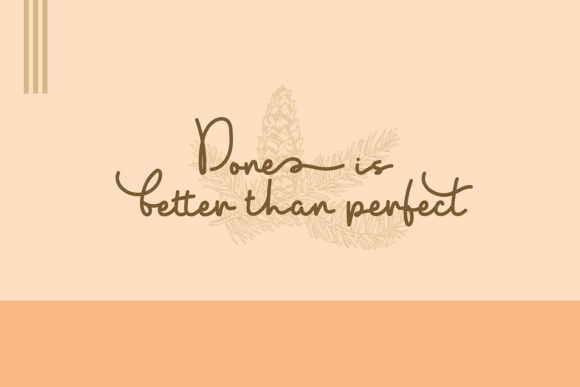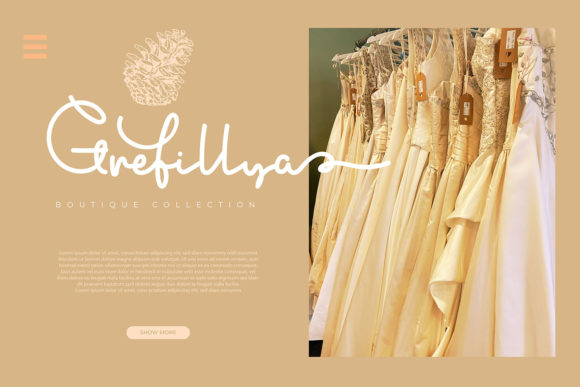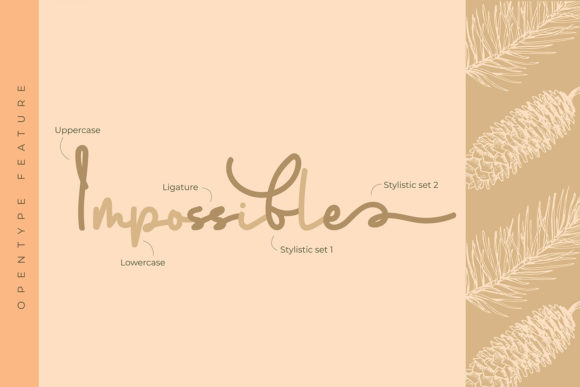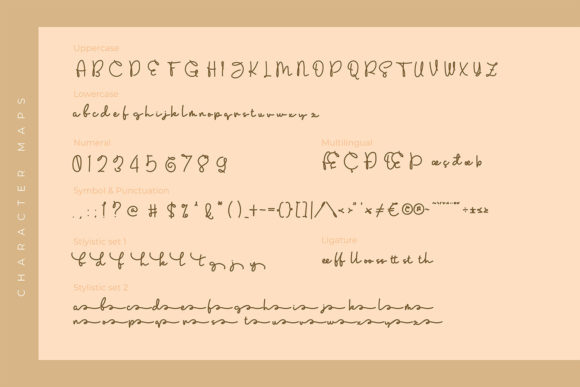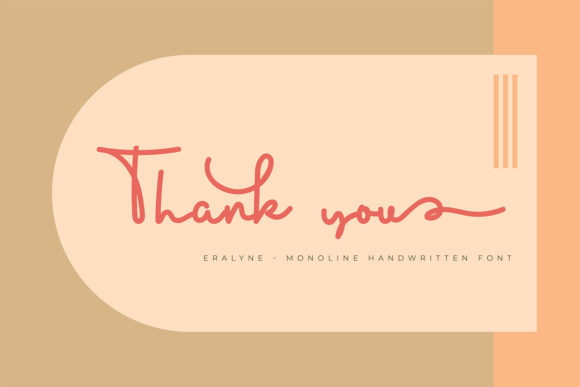
Eralyne Font: The Perfect Handwritten Touch for Your Designs
Are you looking for a beautiful, flowing handwritten font to add a personal touch to your designs? Look no further than Eralyne Font! This stunning font is perfect for a variety of design projects, from wedding invitations and thank you cards to quotes, greeting cards, logos, and business cards.
What Makes Eralyne Font So Special?
Eralyne Font is a unique and elegant handwritten font that is sure to make your designs stand out. Its flowing script and beautiful swashes make it perfect for adding a touch of sophistication and whimsy to any design. Whether you’re a designer, crafter, or DIY enthusiast, Eralyne Font is a must-have in your font collection.
Wedding invitations, save the dates, and thank you cards are just a few examples of the many ways you can use Eralyne Font to add a personal touch to your event designs. The font’s elegant script and beautiful swashes make it perfect for formal events, while its playful and whimsical feel makes it suitable for more casual gatherings.
Ideal for Crafters and DIY Enthusiasts
If you’re a crafter or DIY enthusiast, you’ll love Eralyne Font! The font is perfect for adding a personal touch to your handmade projects, such as journals, planners, and cards. You can use it to create beautiful and unique designs that are sure to impress.
One of the best things about Eralyne Font is that it’s PUA (Private Use Area) encoded, which means you can access all of the glyphs and swashes with ease. This makes it easy to customize your designs and add your own personal touch.
What Can You Use Eralyne Font For?
Eralyne Font is a versatile font that can be used for a wide range of design projects, including:
- Wedding invitations and event designs
- Thank you cards and greeting cards
- Quotes and typography designs
- Logos and branding designs
- Business cards and stationery
- Handmade projects, such as journals and planners
Why Choose Eralyne Font?
There are many reasons why Eralyne Font is a great choice for your design projects. Here are just a few:
- Unique and elegant handwritten script
- Beautiful swashes and glyphs
- PUA encoded for easy access
- Perfect for a wide range of design projects